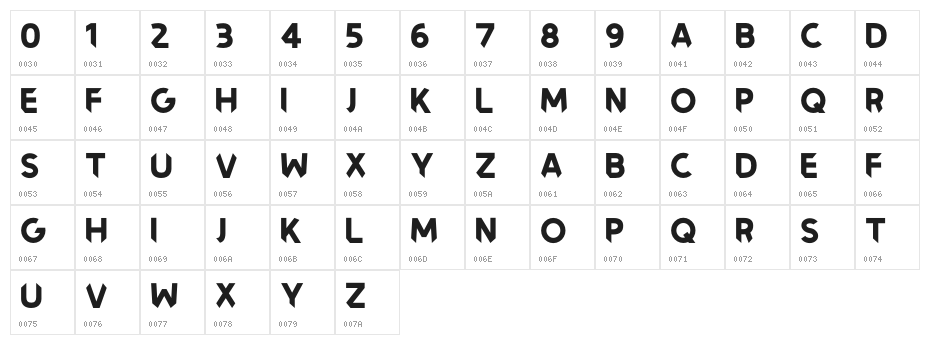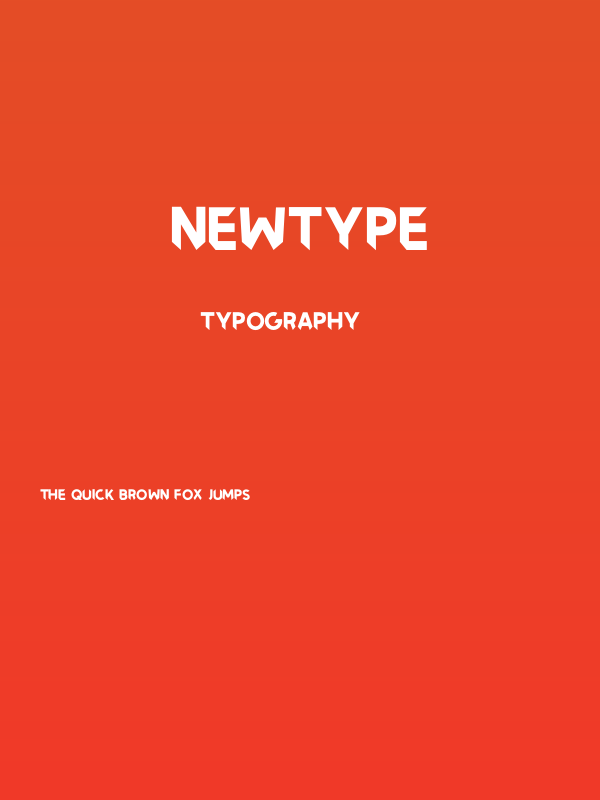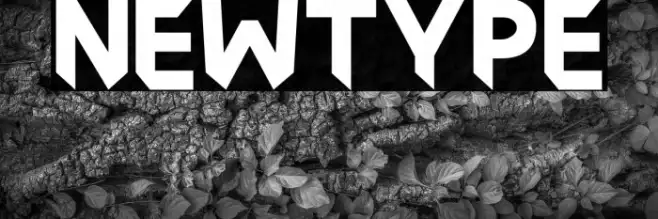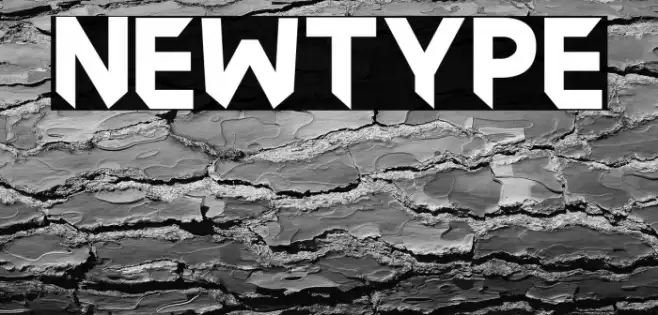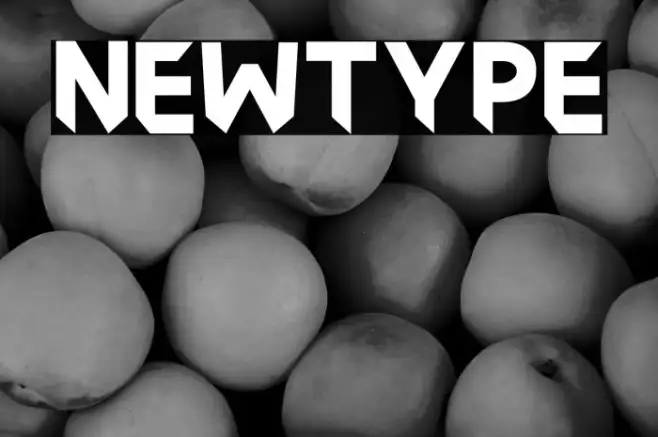
Newtype Font
Newtype Description
This font features a bold and geometric design with sharp angles and clean lines, creating a modern and futuristic appearance. The uppercase letters are particularly striking, with a uniform height and width that gives a sense of balance and stability. The numerals are equally bold, maintaining the geometric style with consistent stroke thickness. The absence of lowercase letters and special characters suggests a focus on impactful, straightforward communication. This font's strong visual presence makes it ideal for attention-grabbing headlines and titles.
| Proposed Projects | Ideal for branding, advertising, posters, and any project requiring a strong visual impact. |